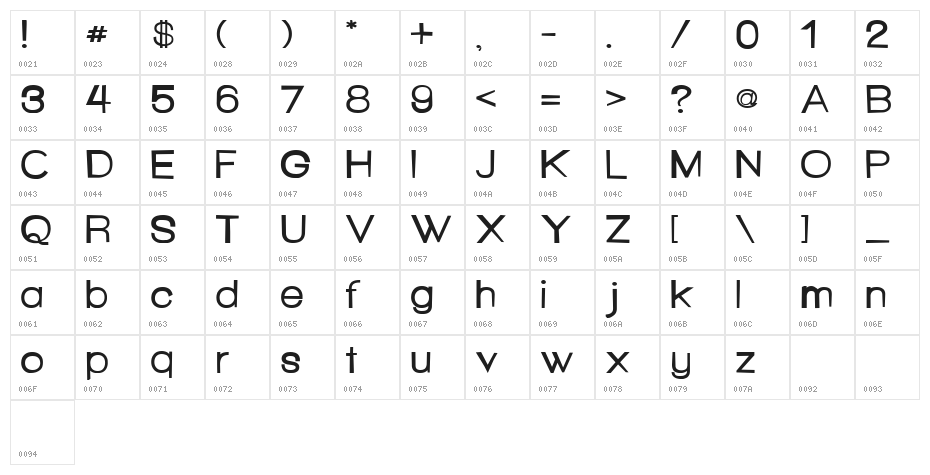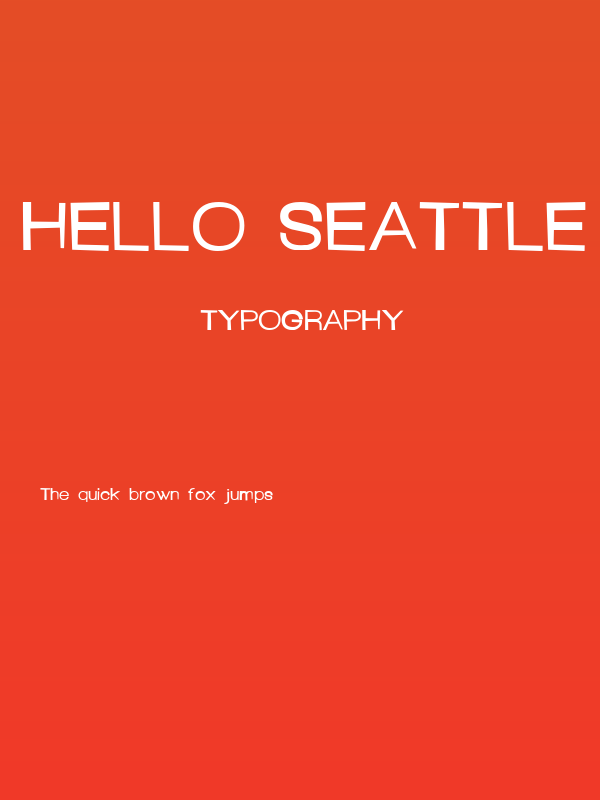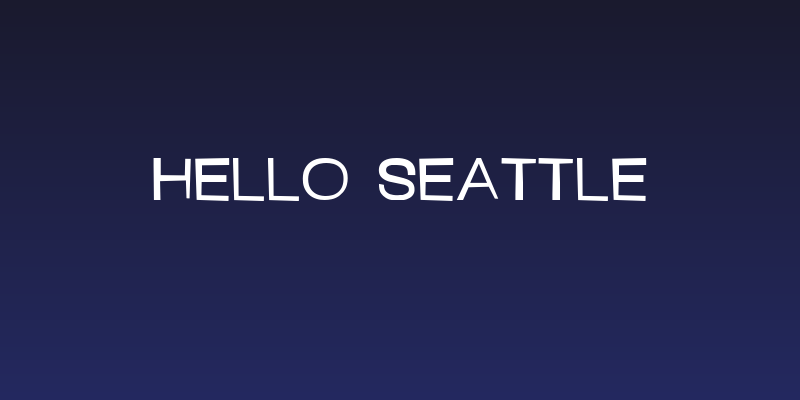
Hello Seattle Font
Hello Seattle Description
This font features a clean and modern sans-serif design with a geometric structure. The characters are uniform in width, providing a balanced and harmonious appearance. The uppercase letters are bold and striking, while the lowercase letters maintain a consistent height, enhancing readability. The numerals are clear and distinct, making them suitable for various applications. Special characters are well-defined, adding versatility to the font. The overall style is contemporary, making it ideal for modern design projects.
Use CaseHeadlines, Logos, Web design
Proposed ProjectsIdeal for branding, advertising, web design, and editorial projects that require a modern and clean aesthetic.